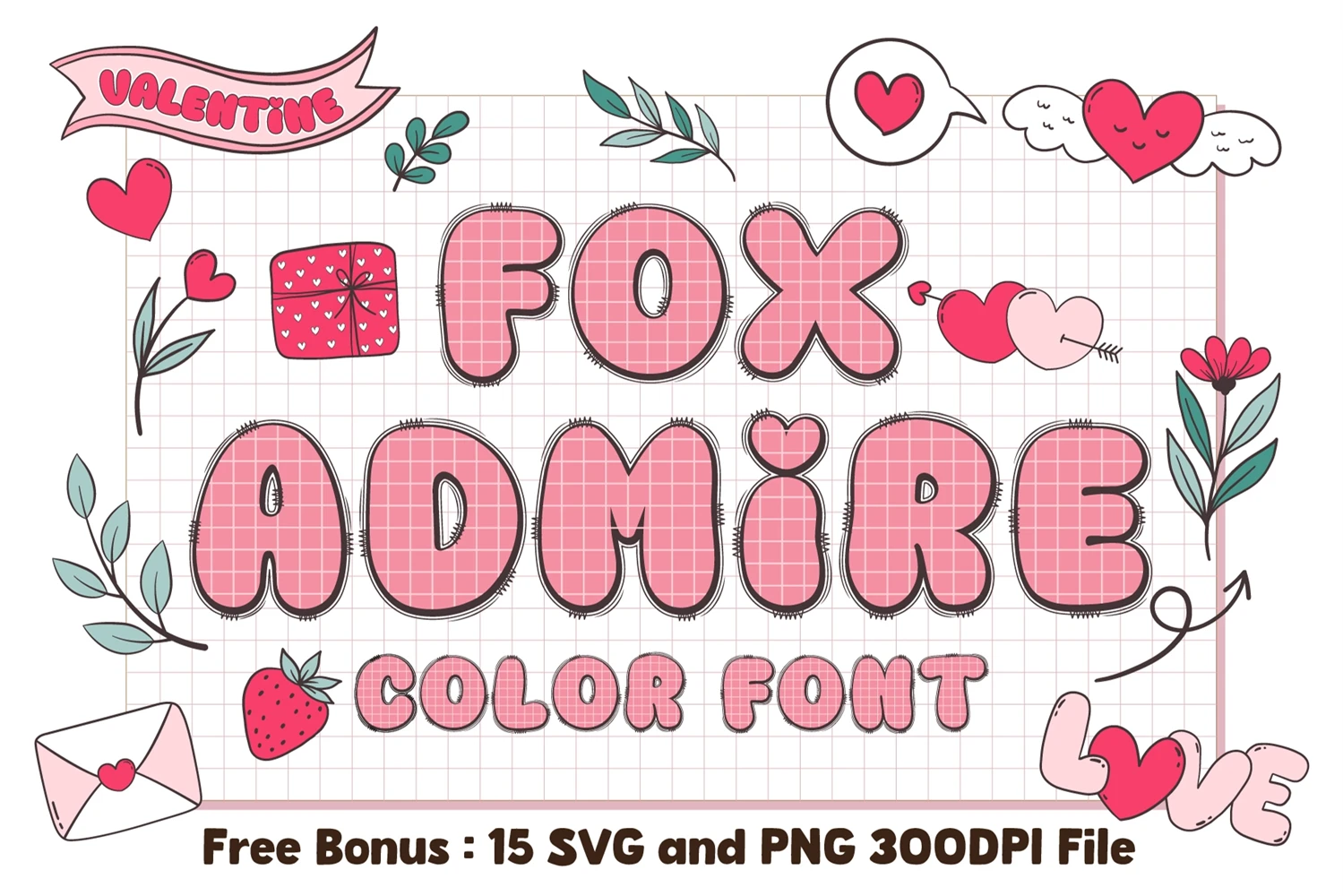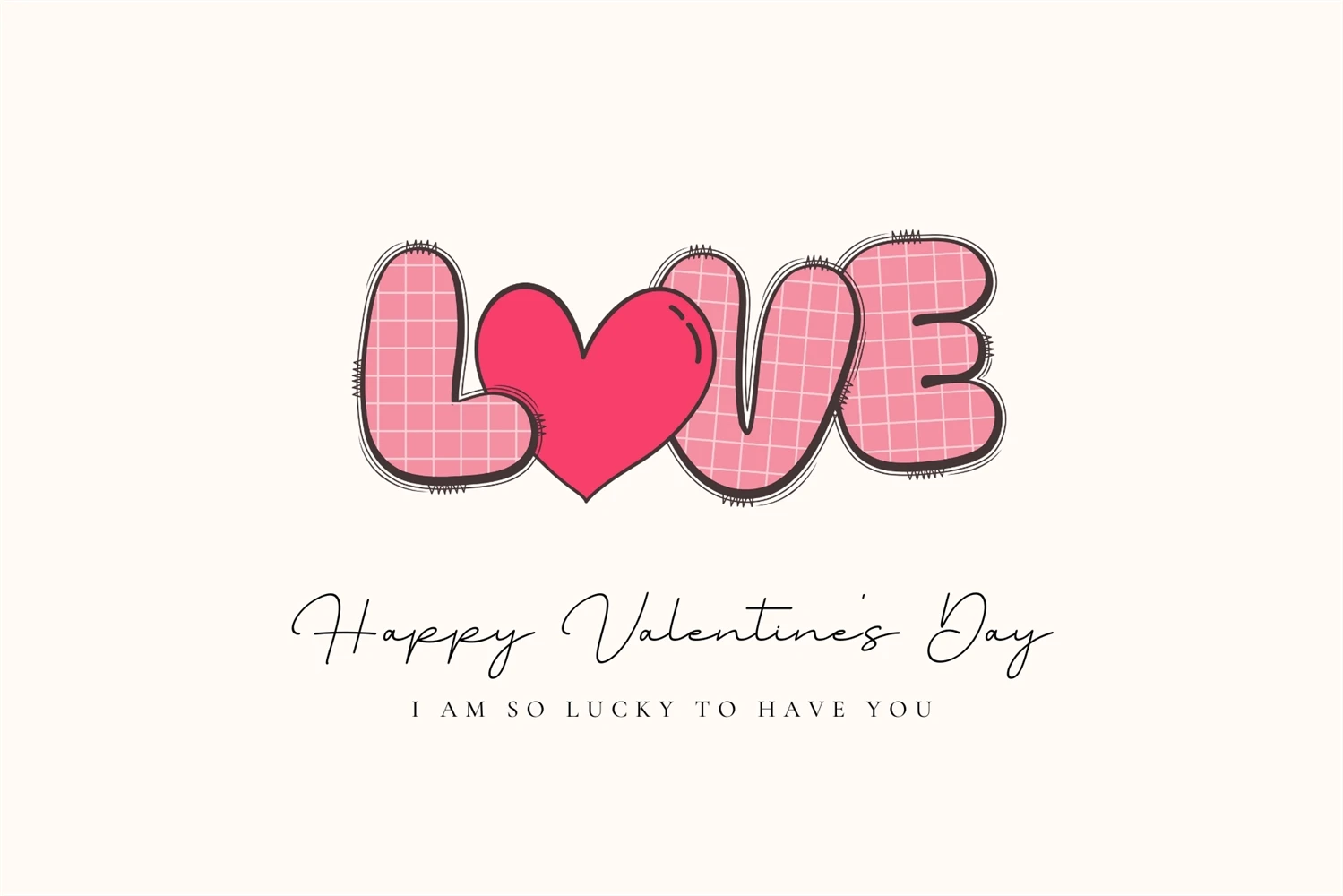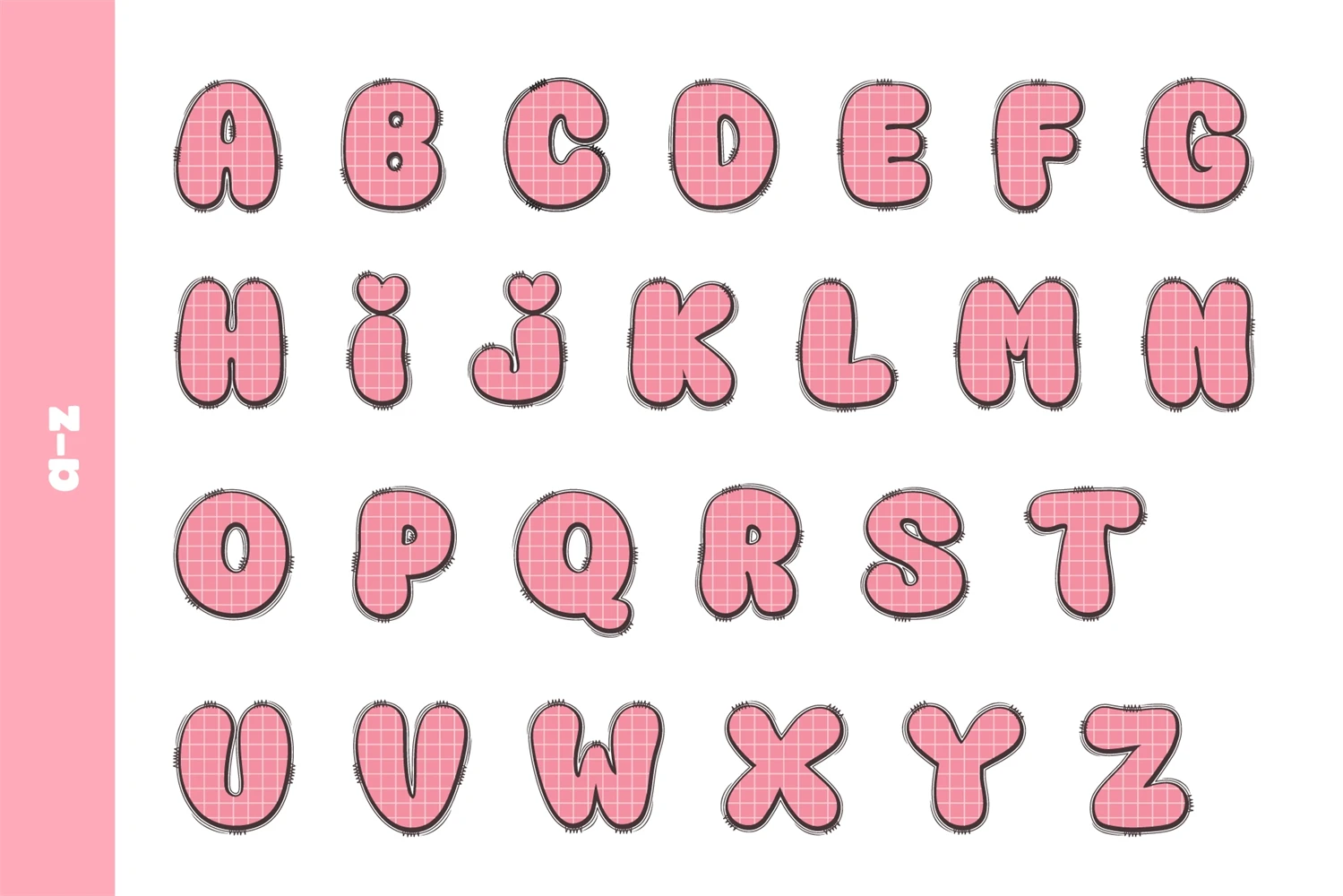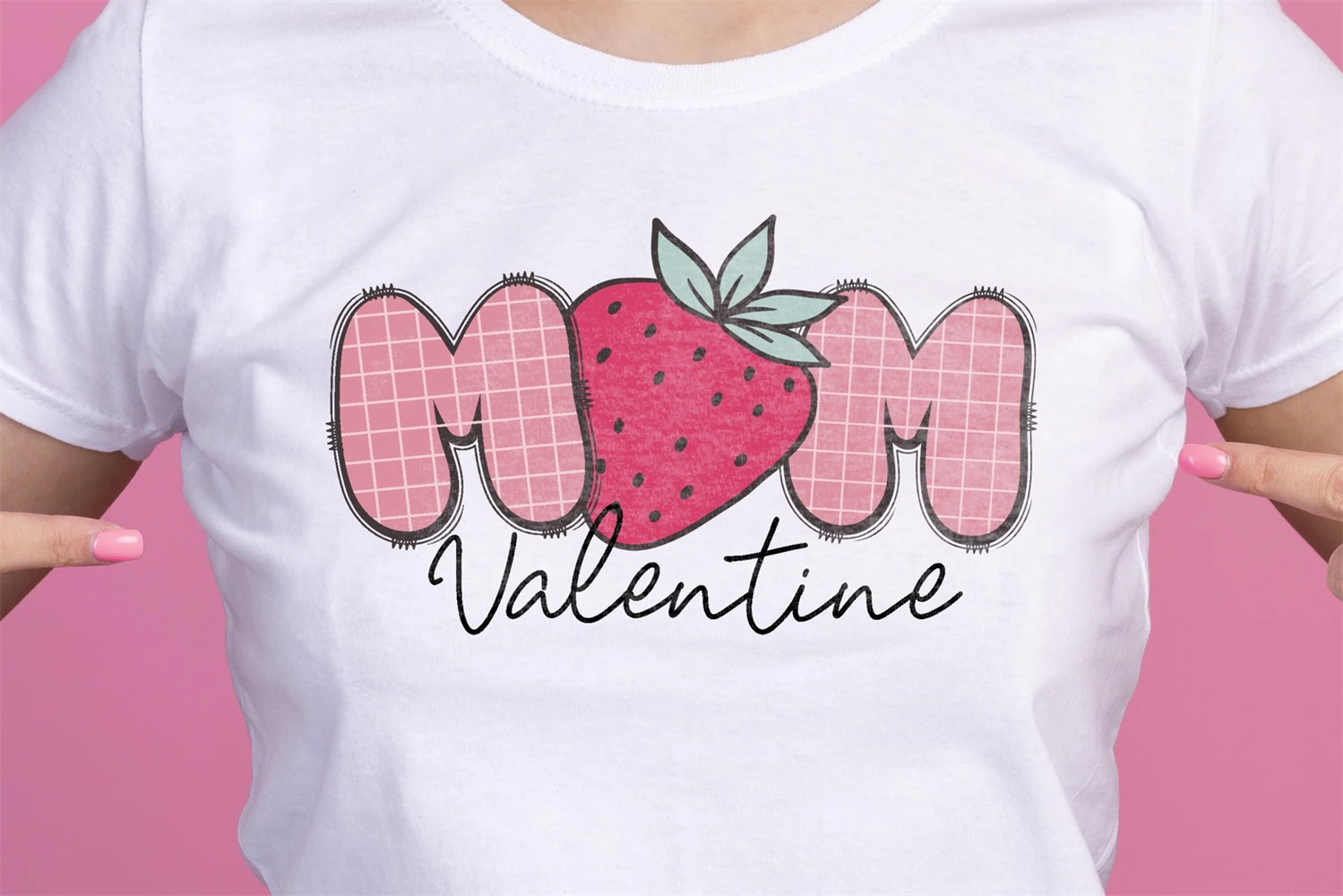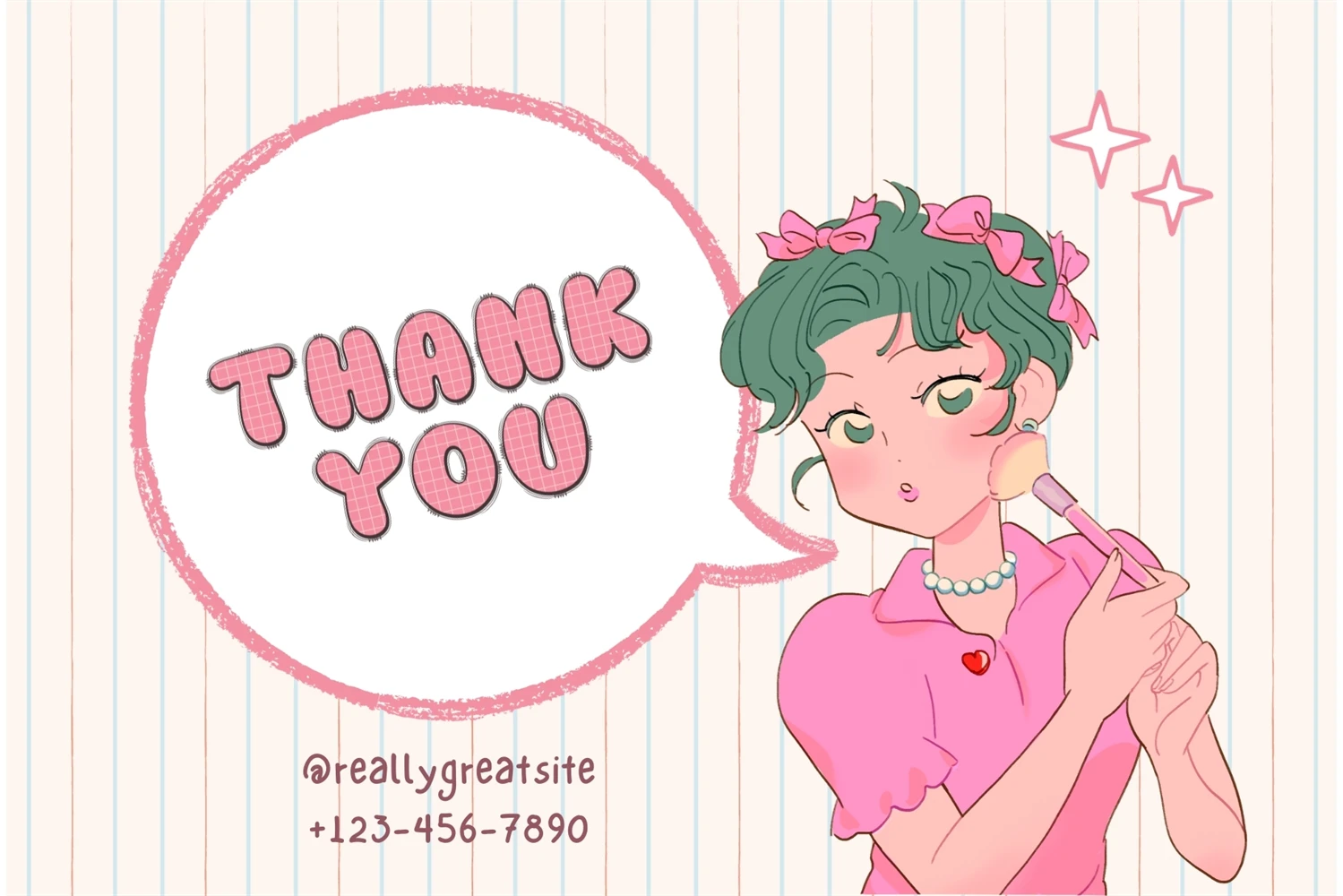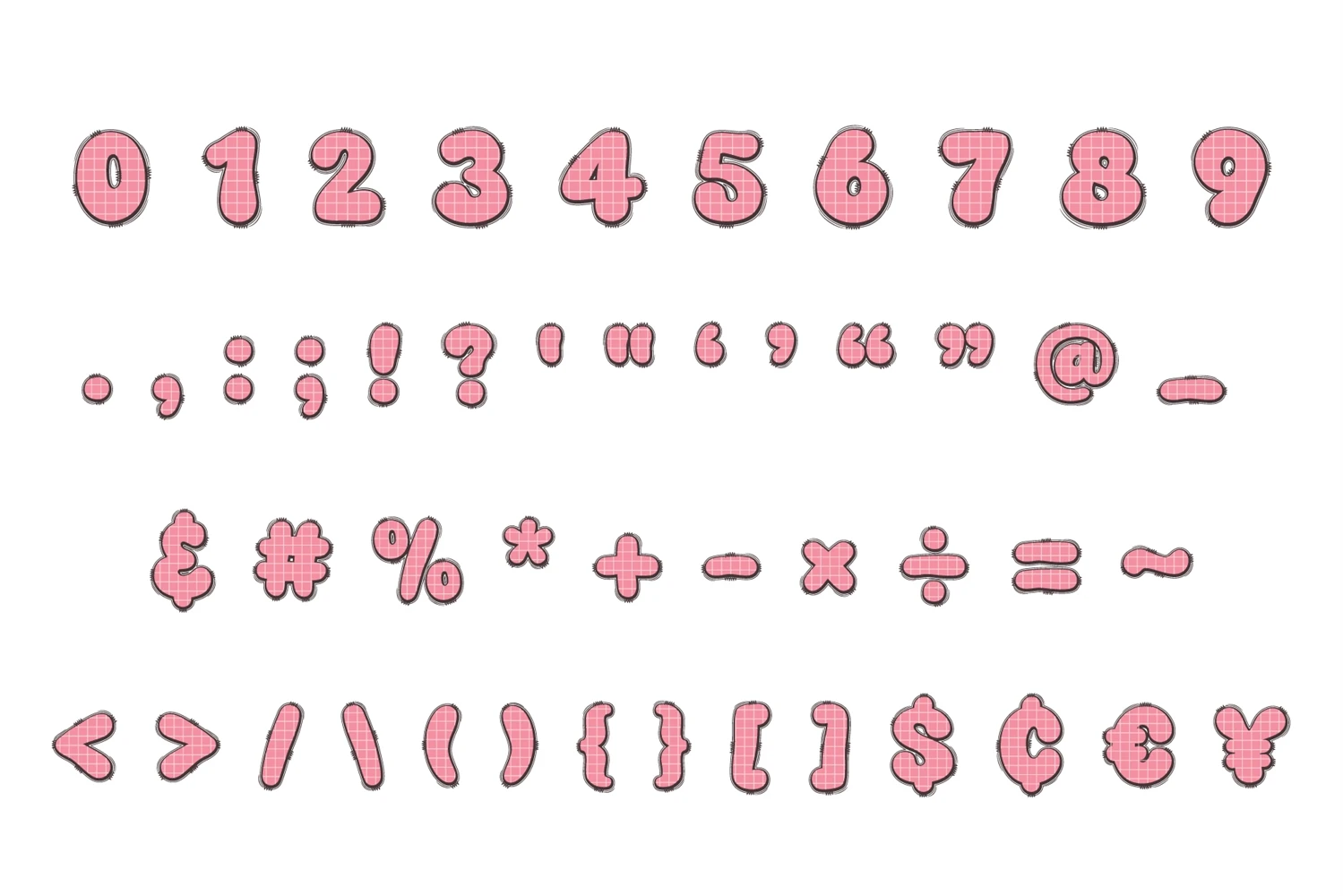
Fox Admire is a cute and fun color font. This font is your go-to for crafting cute greeting cards that express affection and warmth. Whether youre a designer, a social media influencer, or someone with a penchant for creative expression. Fall in love with its authentic feel and use it to create gorgeous invitations, beautiful stationary art, eye-catching social media posts, and cute greeting cards. Add this beautiful font to each of your creative ideas, and notice how it makes them stand out.